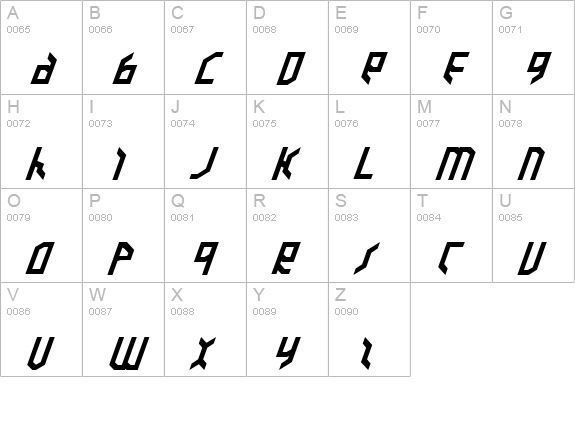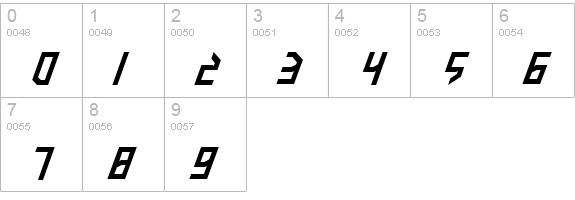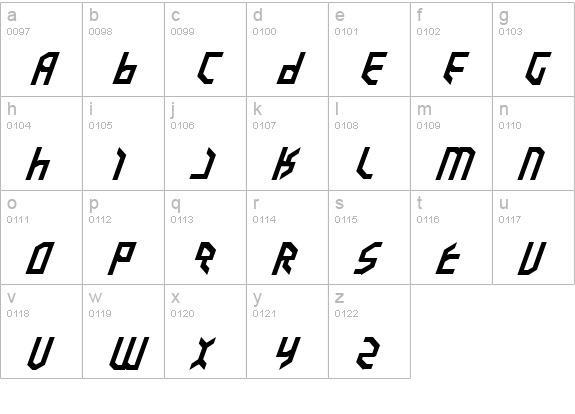
Valkyrie Expanded Italic is a distinctive, extended-width, italic variant in the Valkyrie typeface family \xE2\x80\x94 well suited to design and typography projects.
Valkyrie Expanded Italic font exudes a sense of bold elegance with its sleek and modern design. The italicized style adds a dynamic flair to any text, making it perfect for adding a touch of sophistication to your projects. The elongated letterforms create a sense of movement and energy, drawing the eye effortlessly along the page. This versatile font is ideal for a wide range of design projects, from branding and advertising to editorial and web design. Its clean lines and sharp angles give it a contemporary edge, while the expanded width adds a sense of presence and impact. Best of all, Valkyrie Expanded Italic font is available for free download at FontsMarket.com. Whether you're a seasoned designer looking to refresh your font collection or a beginner seeking a stylish option for your next project, this font is a must-have addition to your toolkit. Download it today and elevate your designs with the sleek sophistication of Valkyrie Expanded Italic font.